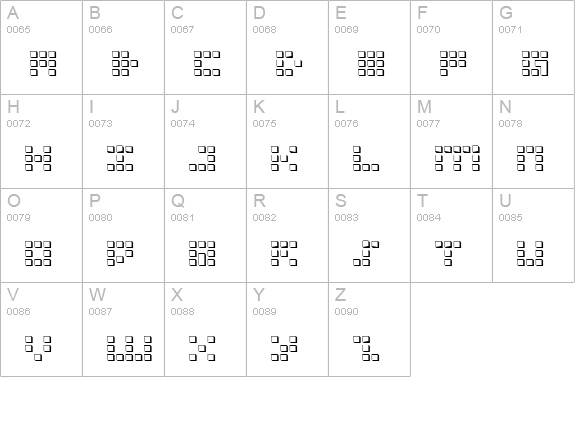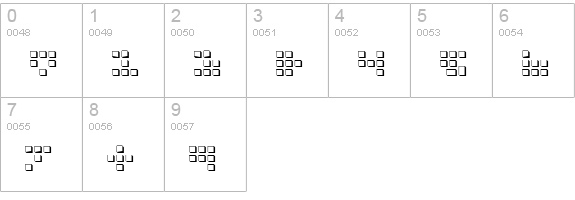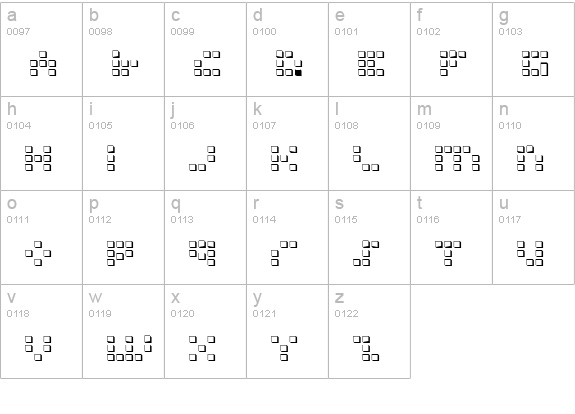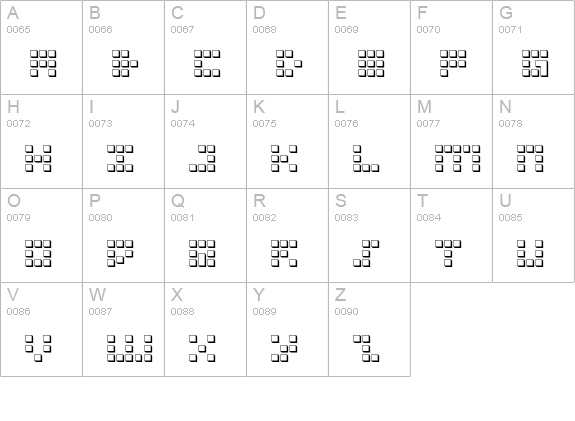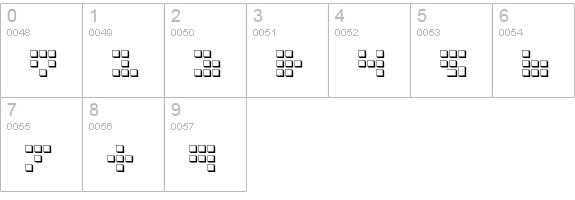
Introducing the mesmerizing Iconian 3D font, a true masterpiece in the world of typography. This innovative and eye-catching font is sure to captivate and inspire anyone who comes across it. With its stunning three-dimensional design, Iconian 3D brings a whole new level of depth and dimension to your projects. The intricate details and carefully crafted curves of Iconian 3D make it a truly unique and remarkable font. Each letter is beautifully sculpted, creating a visual feast for the eyes. This font effortlessly combines modern aesthetics with a touch of retro charm, making it suitable for a wide range of design projects. But perhaps the most impressive aspect of Iconian 3D is that it is available for free! Yes, you read that right. This extraordinary font can be freely downloaded at FontsMarket.com, allowing designers, creatives, and enthusiasts alike to access and utilize its full potential without any cost. Whether you're working on a logo, poster, website, or any other creative endeavor, Iconian 3D is guaranteed to make a lasting impression. Its bold and dynamic presence will elevate your designs and make them stand out from the crowd. With this font, you have the power to transform your projects into stunning visual experiences. So why wait? Don't miss out on the opportunity to enhance your design toolbox with the extraordinary Iconian 3D font. Download it for free today at FontsMarket.com and let your creativity soar to new heights. Unleash the power of three-dimensional typography and leave a lasting impression with Iconian 3D.